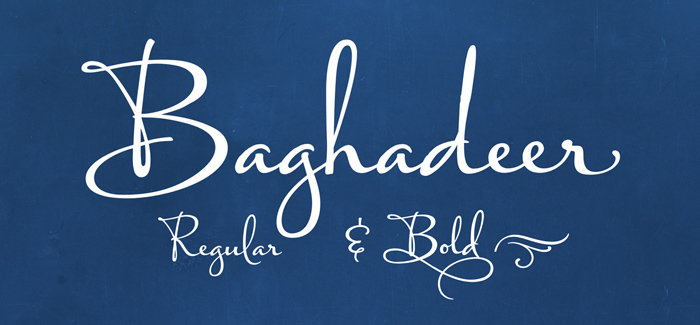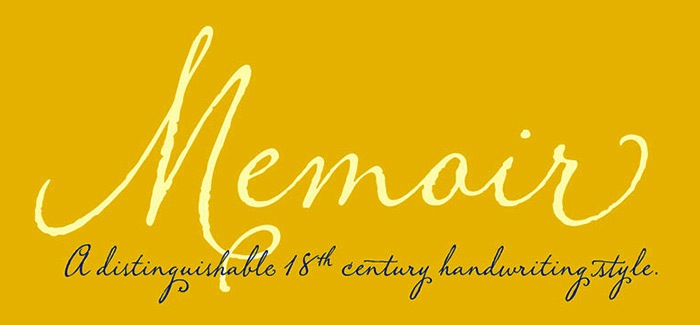
Stephen Rapp
American calligrapher, letterer, and type designer (b. 1953, Indianapolis, IN) located in Lakewood, OH, and/or Kent, OH. As a lettering artist for American Greetings since 2000, he has designed and developed numerous proprietary fonts. He specializes in beautiful script typefaces. Stephen's commercial fonts can be found in both Veer and P22/IHOF collections. Creator of these fonts:
• Baghadeer (2013). A very tall ronde typeface.
• Bramble (2005, P22): an organic hand-printed font family.
• ChaiTea (2007, P22): a flowing script.
• Chatter: hand lettering for a card design that was both humorous and trendy. Proprietary.
• DeSoto (2009-2012) is a family of four engraved typefaces based on a few letters from a 1958 DeSoto magazine ad. Joe Newton at Veer created butterfly ornaments and swashes.
• Hiatus (2010-2013): a connected chancery hand.
• Hollie Hobbie: proprietary hand-printed face.
• Memoir (2008): an elegant connected script.
• Montague Script (2008): a connected calligraphic brush script that won a "Certificate of Excellence in Type Design" award in the 55th Annual Type Directors Club Exhibition and an award at TDC2 2009. In 2014, it was followed by Montague Script Bold.
• New Cuisine (2012). Sure to be a winner, this upright signage script oozes warmth and charm.
• Raniscript: 2009, upright connected script) from 2009.
• Shoebop (2006, 2012): retro connected lettering / signage face.
• Slapjack (2013). A broad-edged calligraphic script.
• Tai Chi (2003, P22): a calligraphic oriental simulation font.
• Custom fonts by Rapp were created for American Greetings, AGI and a few private clients. As of 2014, they include Longhand Plain&Swash, Chick Flick, Ciao Bella, AGI Typewriter, AGI Serif, AGI Hand, Chickadee, Madeline, Rough Draft Pro, Cafe Noire, Cantoni Pro, Milk and Honey, Line Dance and Vickery Script.
Typefaces from 2015: Spry Roman.